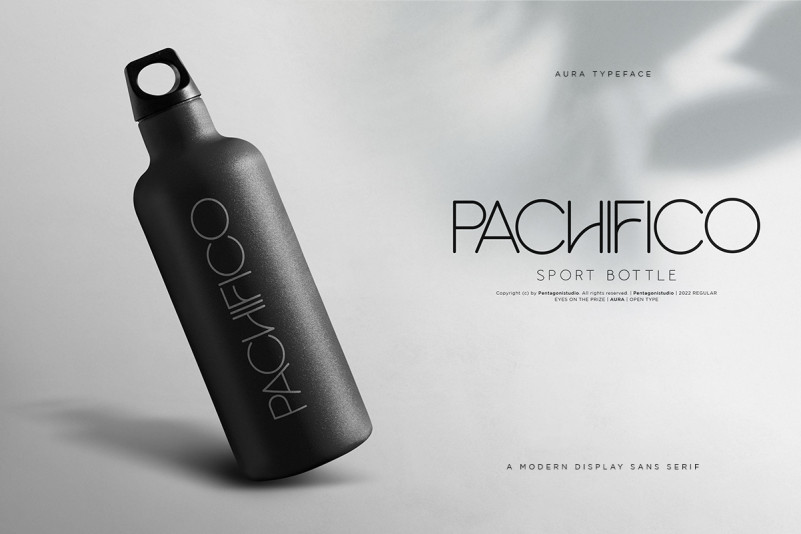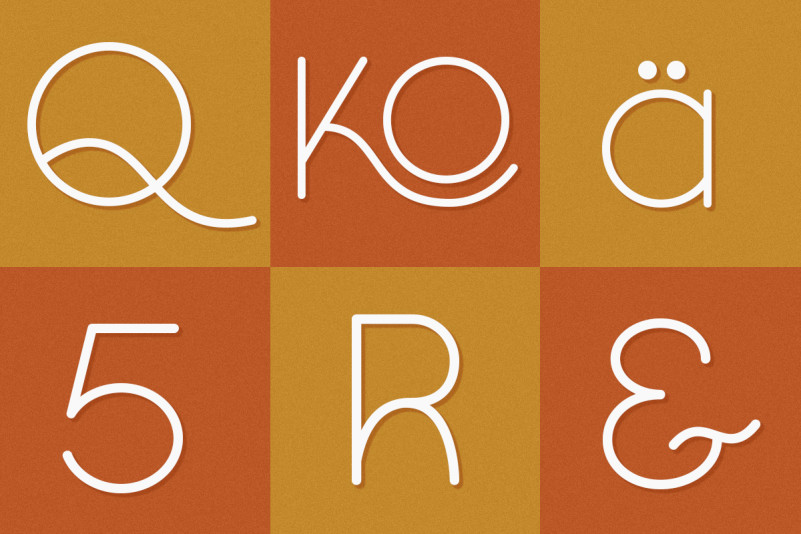
Aura Sans Serif Font Is Modern Round Sans Serif Character with Huge Ligatures. It’s perfect for logos, branding, title, social media posts, advertisements, product packaging, product designs, label, photography, watermark, special event, magazine, web designs, etc.